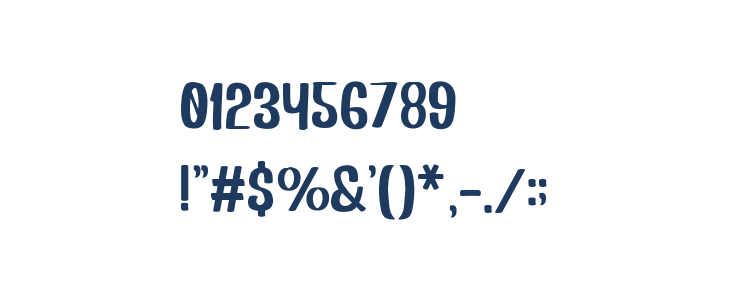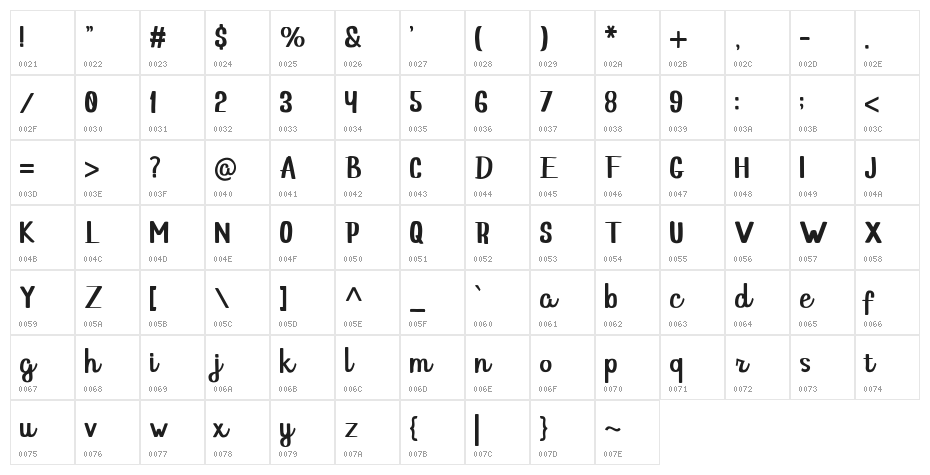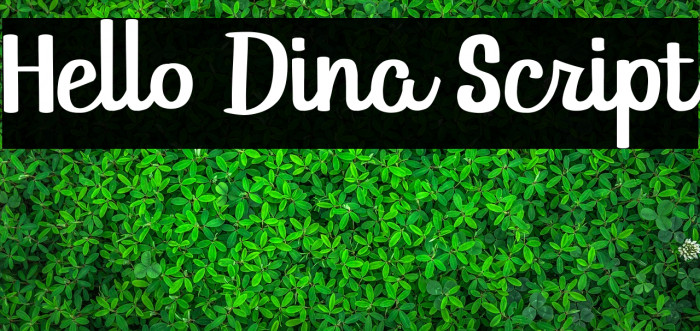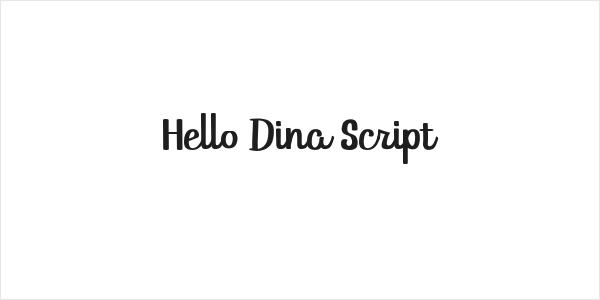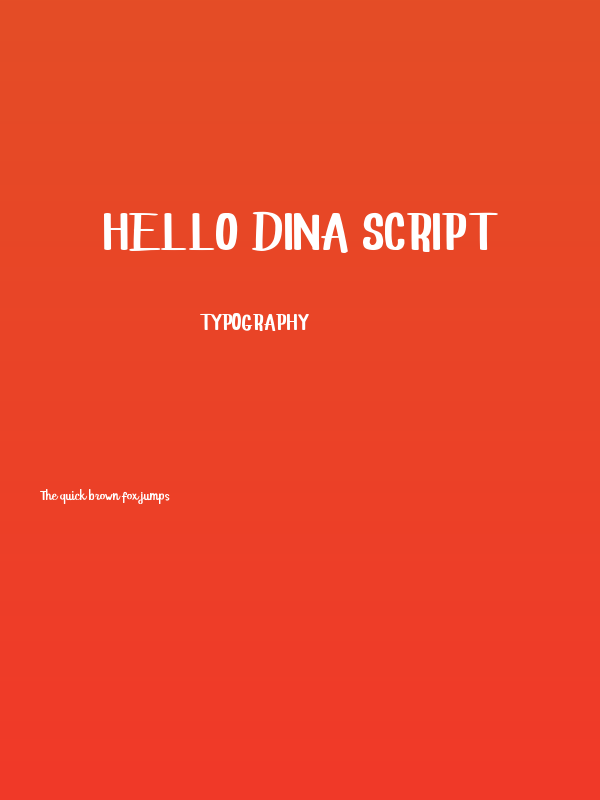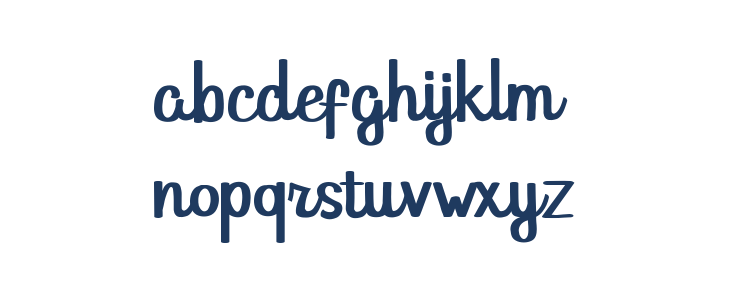
Hello Dina Script Font
Hello Dina Script Description
This font exudes a playful and casual vibe, combining elements of both script and sans-serif styles. The uppercase letters are bold and slightly condensed, with a uniform stroke width that gives them a strong presence. The lowercase letters are more fluid and connected, resembling a handwritten script with smooth curves and loops. The numerals are consistent with the uppercase style, maintaining clarity and readability. Special characters are designed to match the overall aesthetic, ensuring a cohesive look across all glyphs. This font is versatile, suitable for projects that require a friendly and approachable feel.
| Proposed Projects | Ideal for greeting cards, invitations, branding, and social media graphics. |